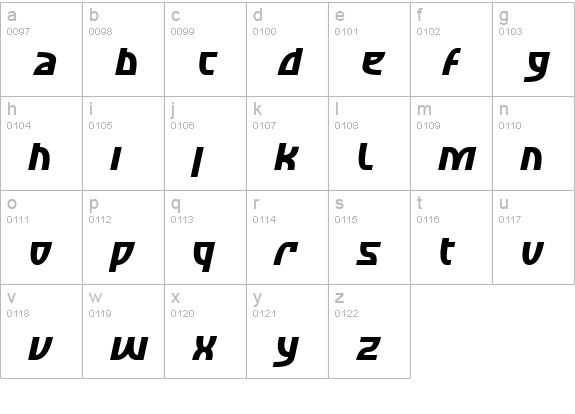
SF Retroesque Oblique Font Details
SF Retroesque Oblique is a distinctive, italic variant in the SF typeface family \xE2\x80\x94 well suited to design and typography projects.
SF Retroesque Oblique is a captivating and versatile font that seamlessly blends the elegance of retro design with a modern twist. Its unique oblique style adds a touch of sophistication to any project, making it perfect for both digital and print applications. This font features distinctive letterforms with a retro-inspired aesthetic, characterized by its bold strokes, sharp angles, and clean lines. Its timeless appeal makes it suitable for a wide range of design projects, such as branding, advertising, packaging, posters, and more. One of the best things about SF Retroesque Oblique is that it is completely free to use. Yes, you read that right - this remarkable font is freely available to download at FontsMarket.com. Whether you're a professional designer or a hobbyist, you can now access this font without any hassle, allowing you to unleash your creativity without breaking the bank. With SF Retroesque Oblique, you can effortlessly evoke a sense of nostalgia while maintaining a modern edge. Its versatility and unique style make it a must-have addition to any designer's toolkit. So why wait? Download SF Retroesque Oblique today and let your designs stand out from the crowd with this stunning and freely accessible font.